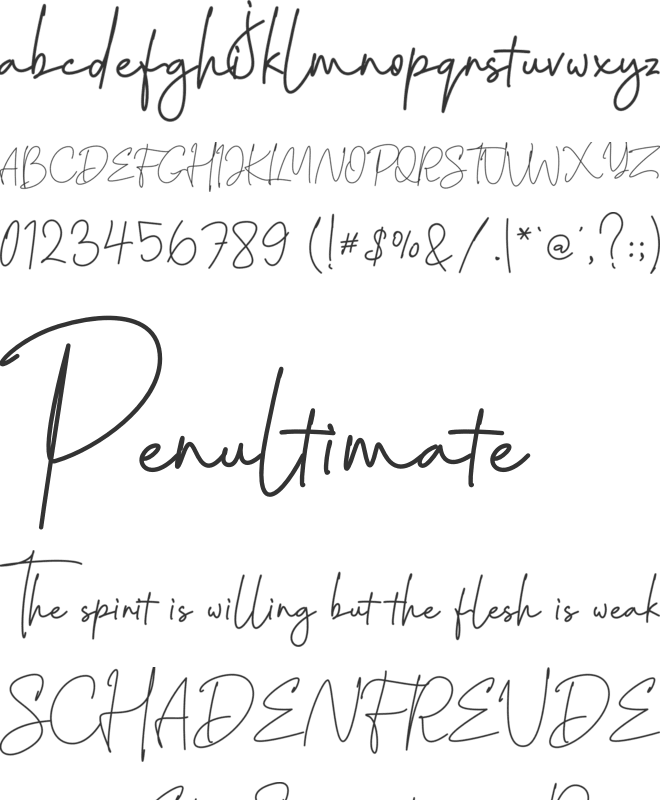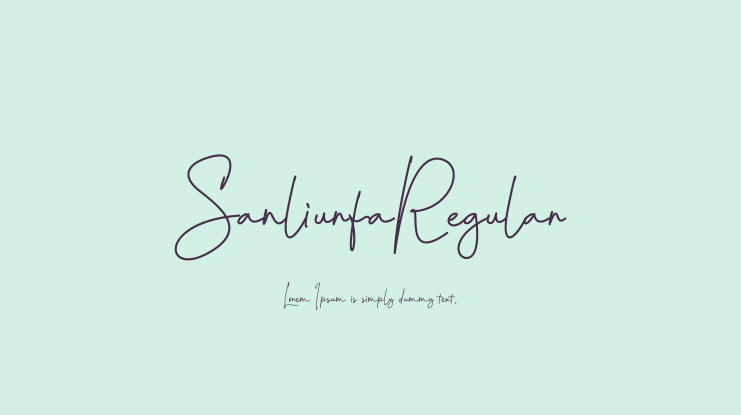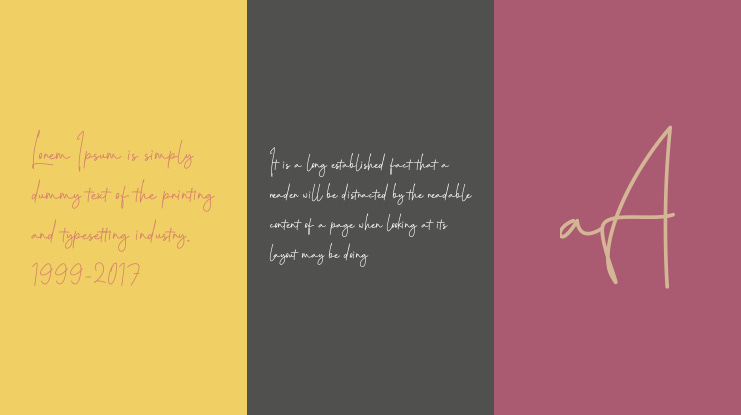
SanliurfaRegular Font
Sanliurfa is luxury signature font, with many and beautiful ligature to make your every project look like classy and high class, suitable for every project such as, logo design, wedding invitation, banner, poster, web design.